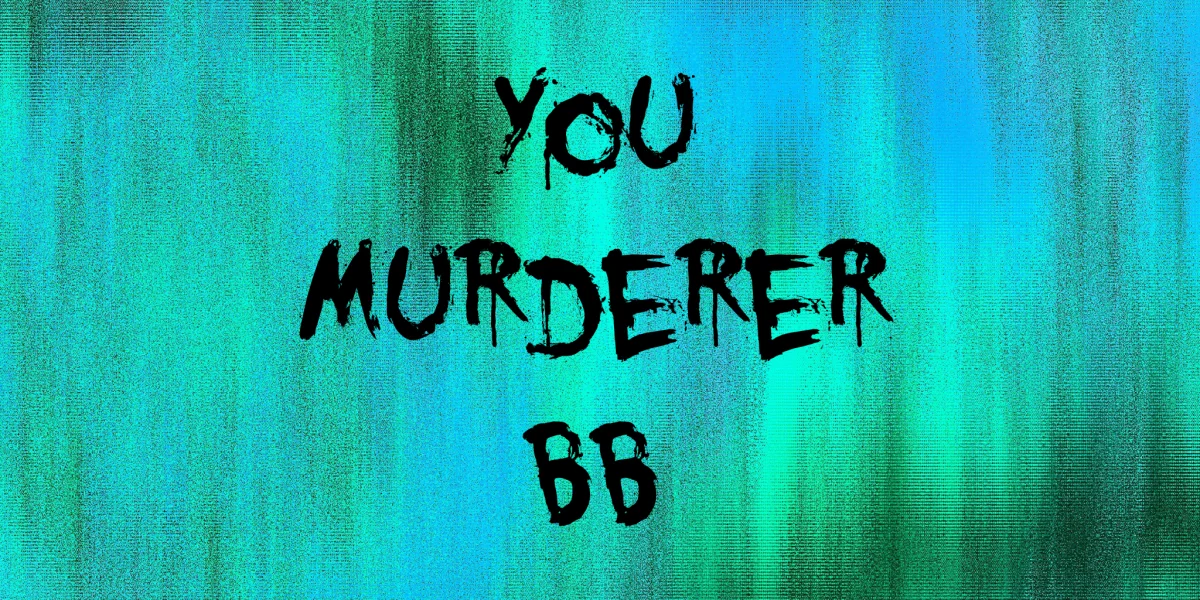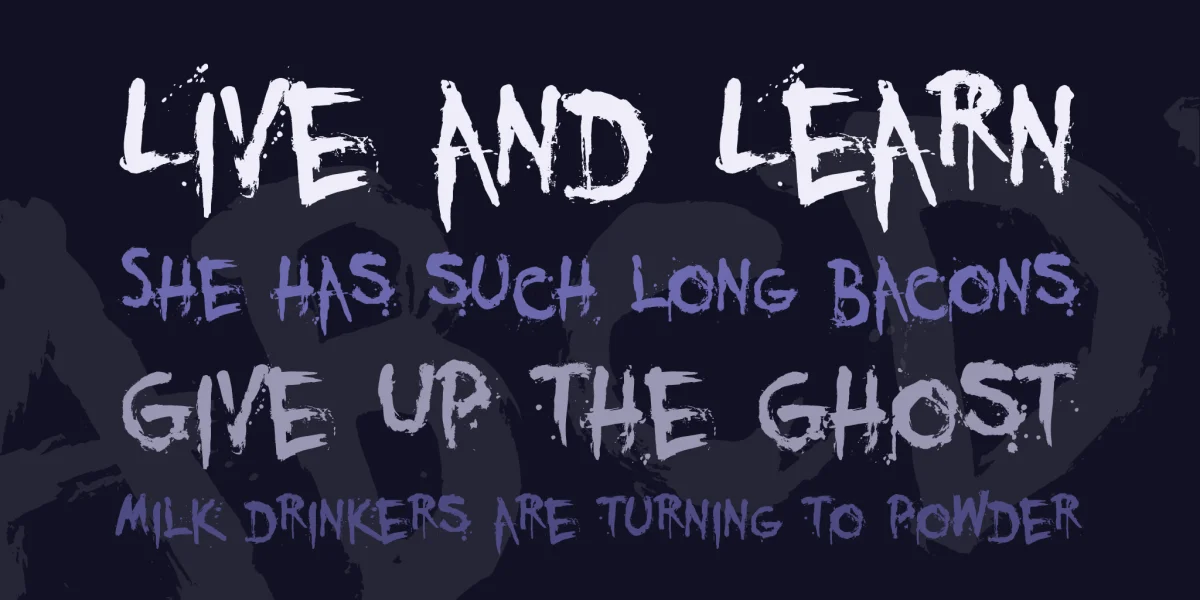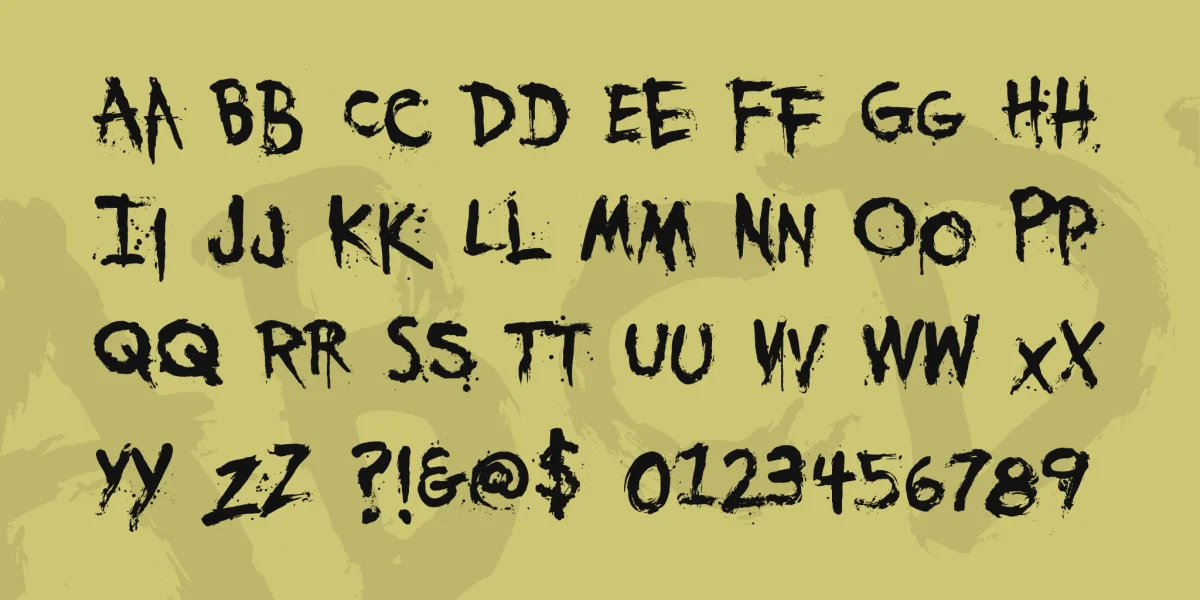
YOU MURDERER is the gruesome new freebie title font. This font was created by dipping my finger in runny ink and "writing" on sheets of bristol board...perfectly simulating someone's dying message written in blood! There's a pairof bloody handprints hidden in there as well…